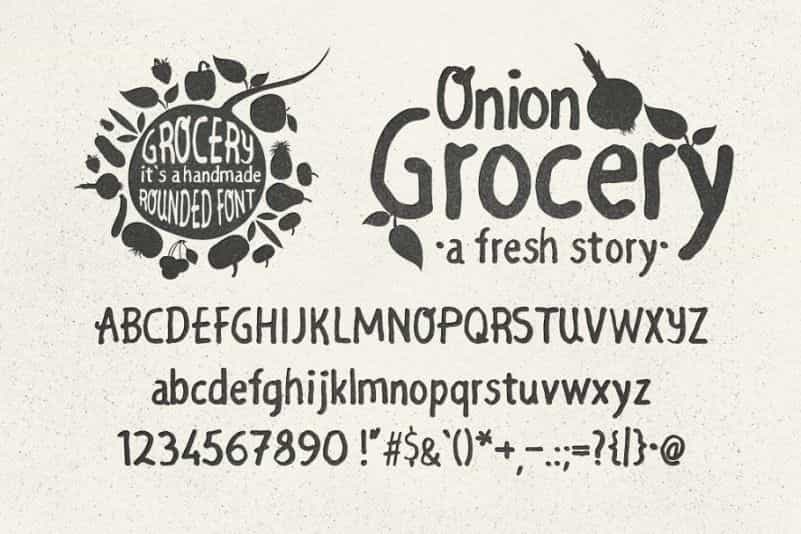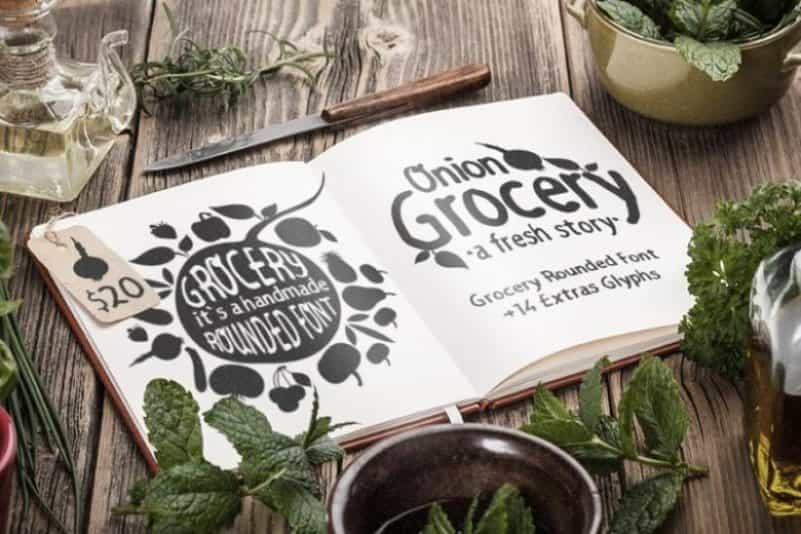
Grocery Rounded is a casual handwritten typeface, which is inspired by the handwriting lettering and doodle art trends. Hand-drawn with a brush lettering and perfectly vectorized with many options that you can use for creating handwritten effects!